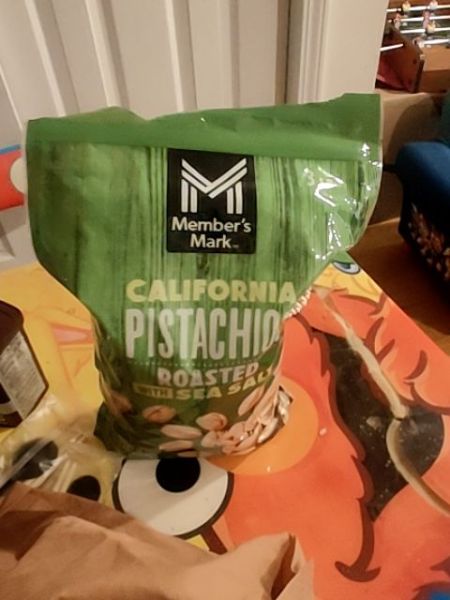
Member's Mark California Pistachios
The product is a package of California pistachios, roasted with sea salt, intended as a snack or culinary ingredient.
The typography uses a modern sans-serif font that is clean and easy to read. The word 'PISTACHIOS' is displayed in large, capitalized letters, emphasizing the product. The font has a strong visual impact, adding to the overall attractiveness of the design.
The packaging is a resealable green bag that features a bold, earthy design. It prominently displays the brand and product name in the center, with an image of pistachios at the bottom for visual appeal.